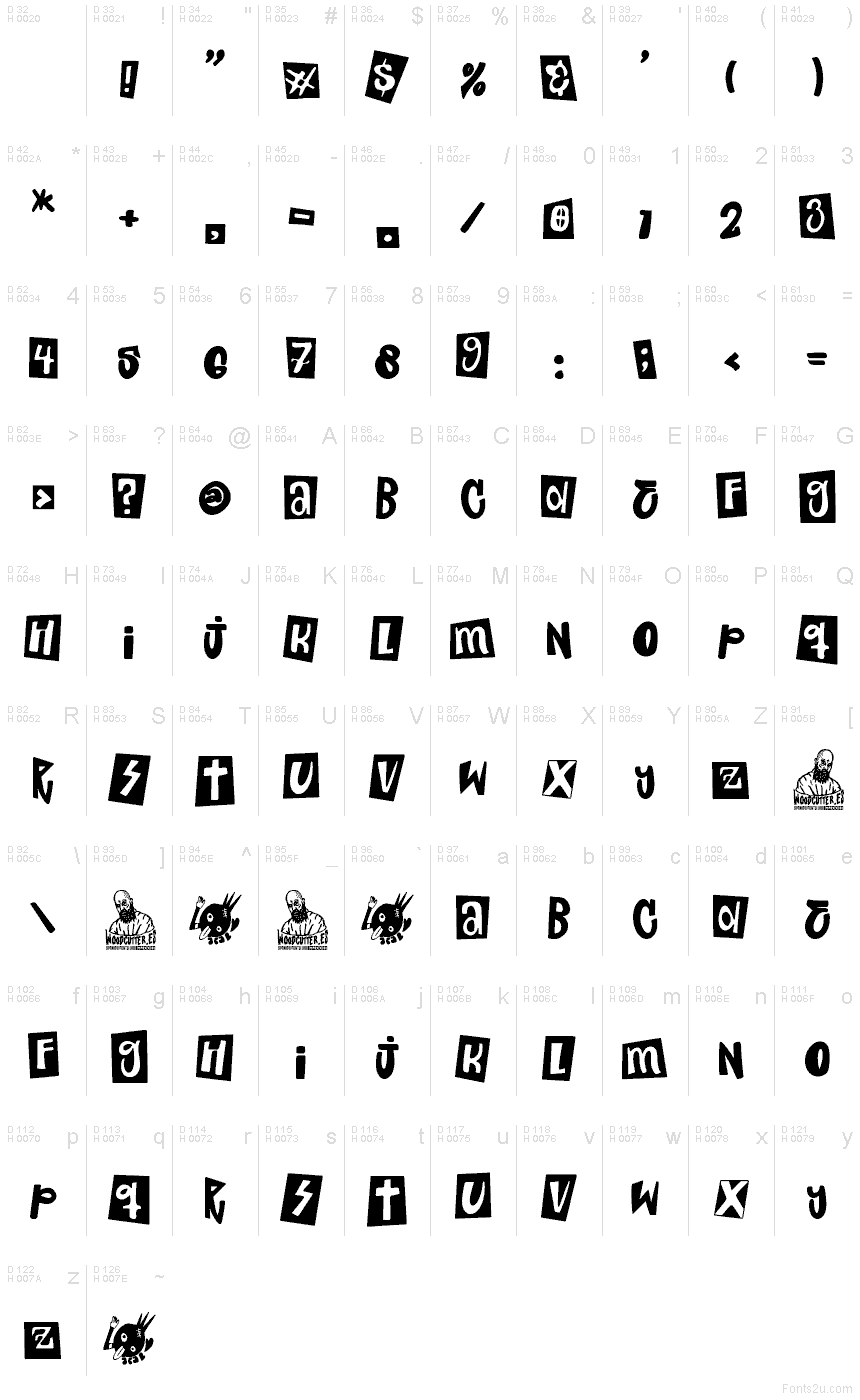
Punk Toons Channel
Punk Toons Channel font by Woodcutter is a distorted display typeface with bold characters. Retro-inspired and quirky, this font has an eclectic design that brings out a rebellious vibe. Creative readers will notice diagonal lines on top of its characters while the energetic presence is what would be apparent to most viewers.
If we had to suggest ideas for a use case, they would include cartoons, fun games, toy packages, posters, books for children covers, apparel prints and tags. Other use cases could be comic books design or event invitations whenever suitable.